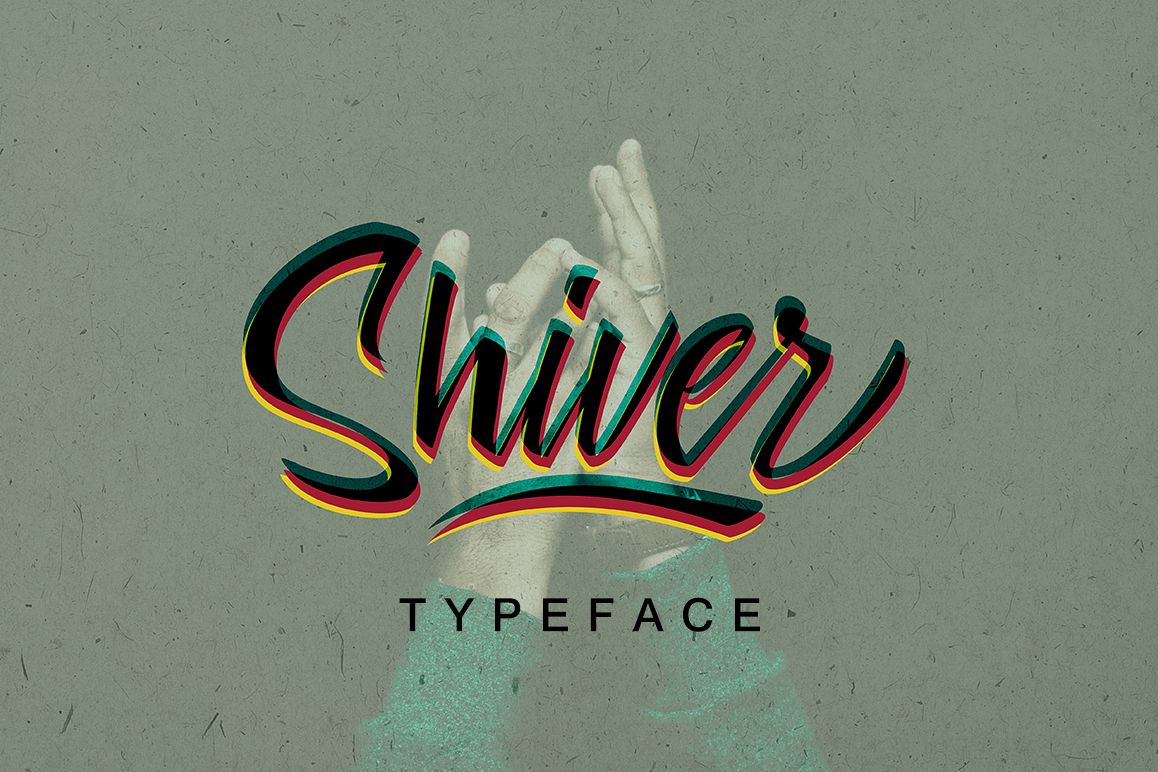
Shiver Script
SHIVER
ShiverSwash-Regular
ShiverIntroducing Shiver, a typeface created stylized handwriting is clearly visible charms, made more elegant impression posts and more passionate. It comes with different styles that will make a wonderful impressionShiver Script is handwritten stylish copperplate calligraphy fonts, combines from copperplate to contemporary typeface with a dancing baseline, classic and elegant touch. Can be used for various purposes.such as headings, signature, logos, wedding invitation, t-shirt, letterhead, signage, lable, news, posters, badges etc.Files included: